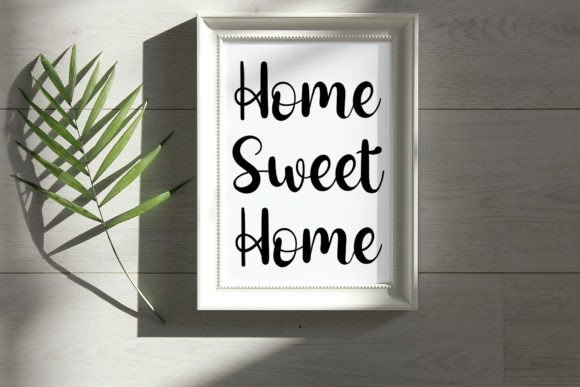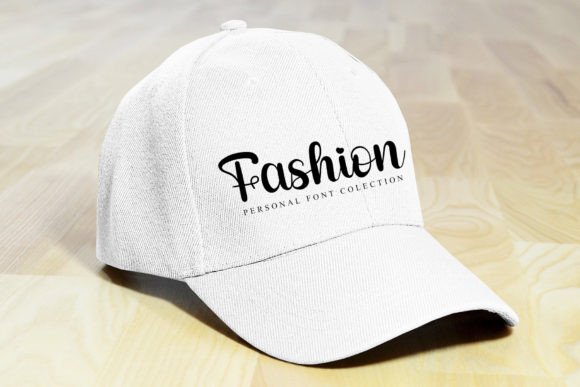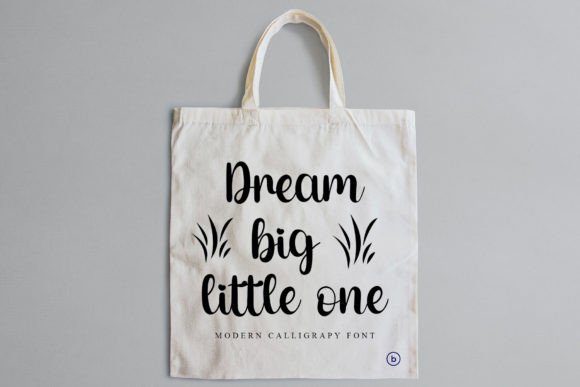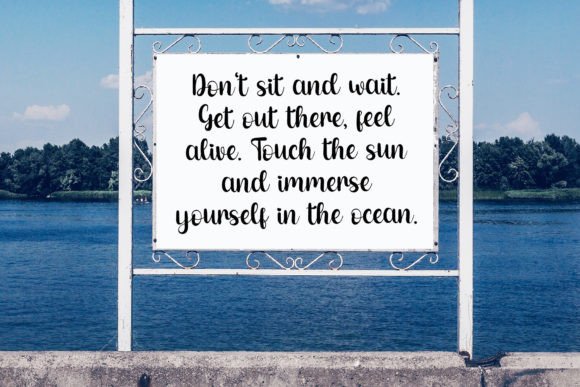
Celosia Font
About Celosia Font
Celosia is a beautiful handwritten font, meticulously crafted for a range of design applications. Ideal for wedding invitations, greeting cards, billboards, logos, business cards, and any project that demands a sophisticated handwritten touch, Celosia stands out with its carefully designed features, including a varied baseline.
The beauty of Celosia lies in its elegant and handwritten style, adding a personal and authentic touch to your text. The varied baseline contributes to a dynamic and artistic quality, enhancing the overall aesthetics of your designs. Whether you’re working on digital or print media, Celosia is crafted to bring a sense of refinement to your projects.
Imagine Celosia gracing the pages of wedding invitations, creating a romantic and personalized feel for the celebration. Envision it on billboards or business cards, where its elegant style makes a lasting impression. Whether used for branding or special occasions, Celosia is designed to bring sophistication and craftsmanship to your work.
In summary, Celosia is more than just a font; it’s a creative tool crafted to bring beauty and elegance to your designs. Apply it to your projects, and experience how its handwritten charm and varied baseline enhance the visual appeal, making your creations truly standout.